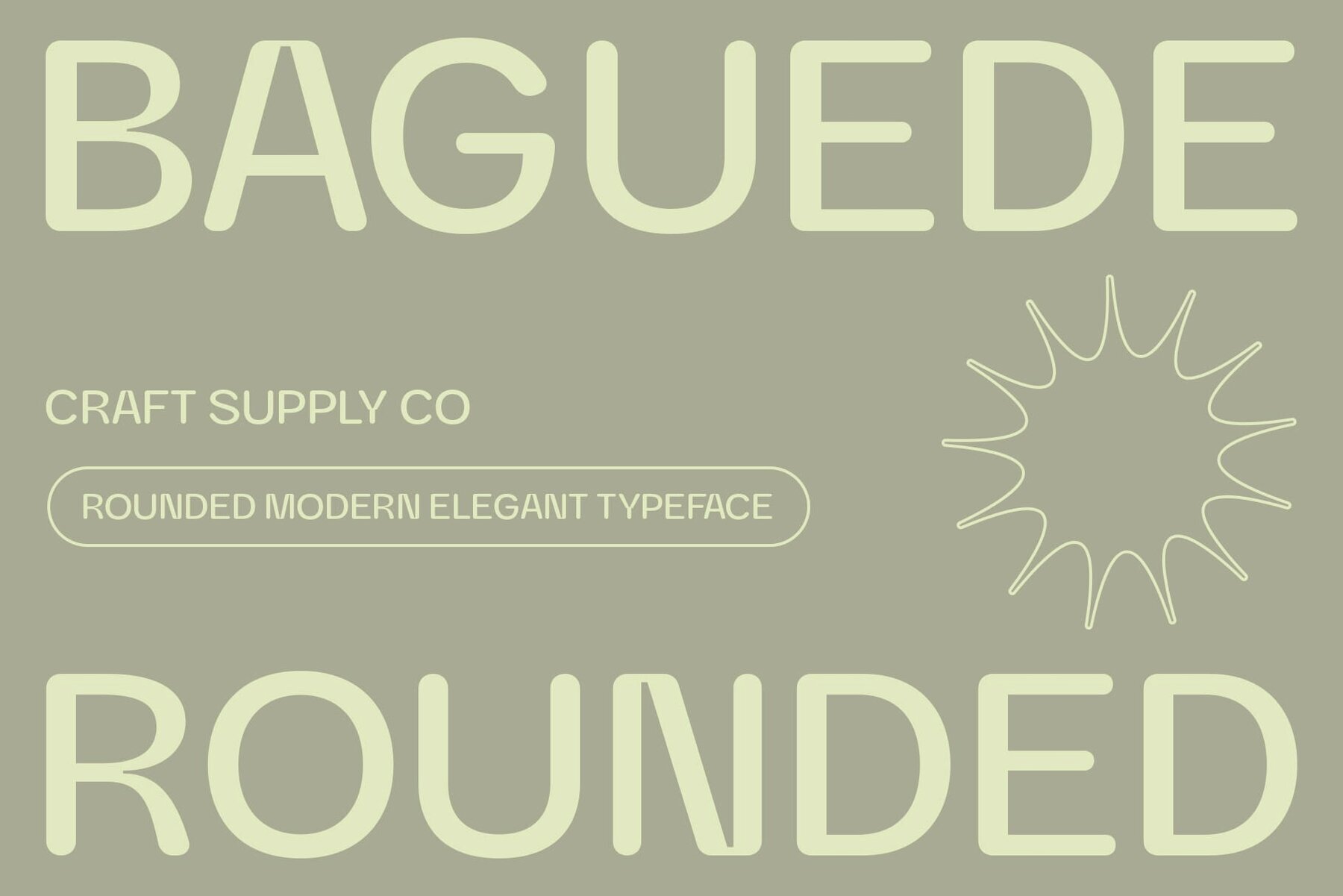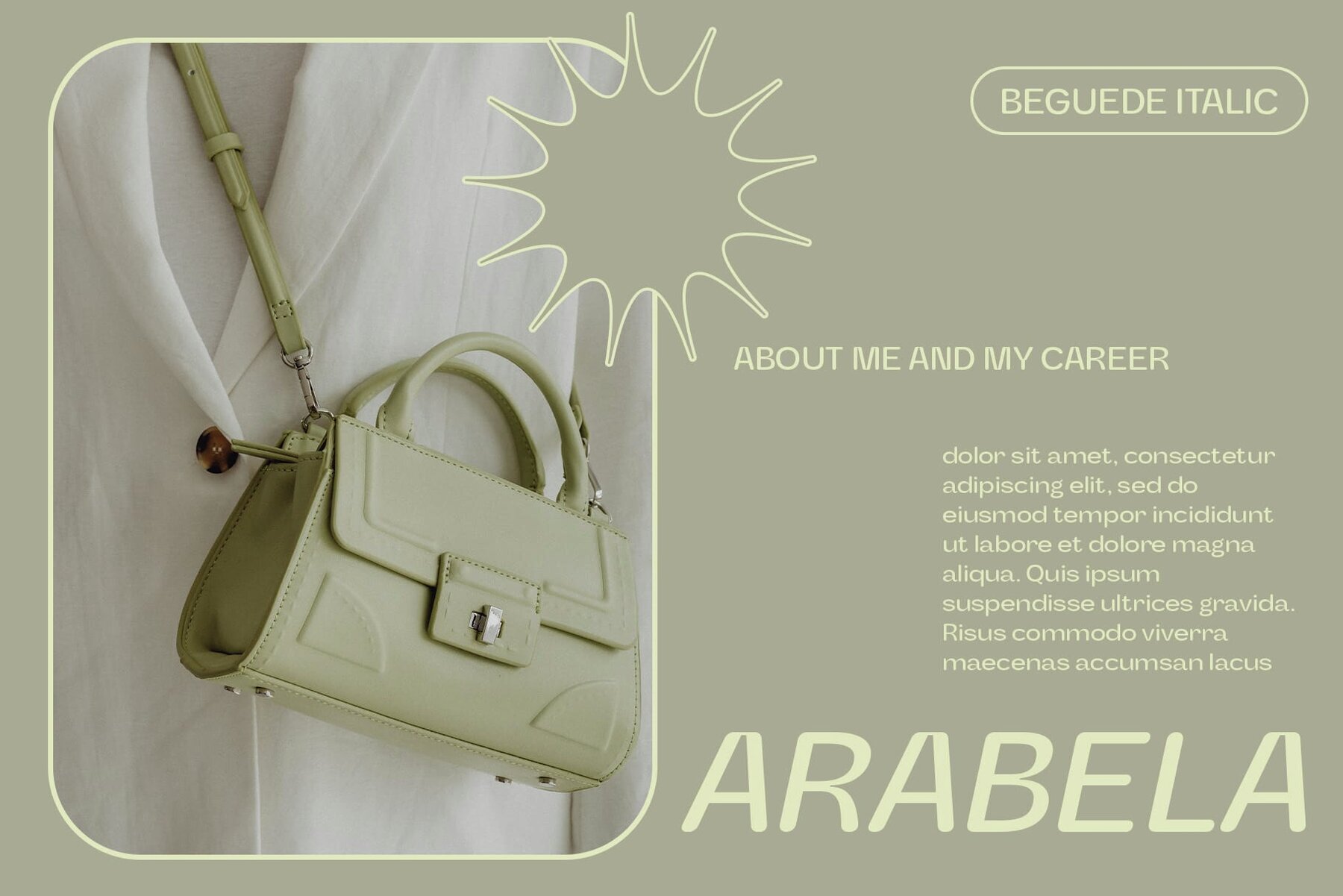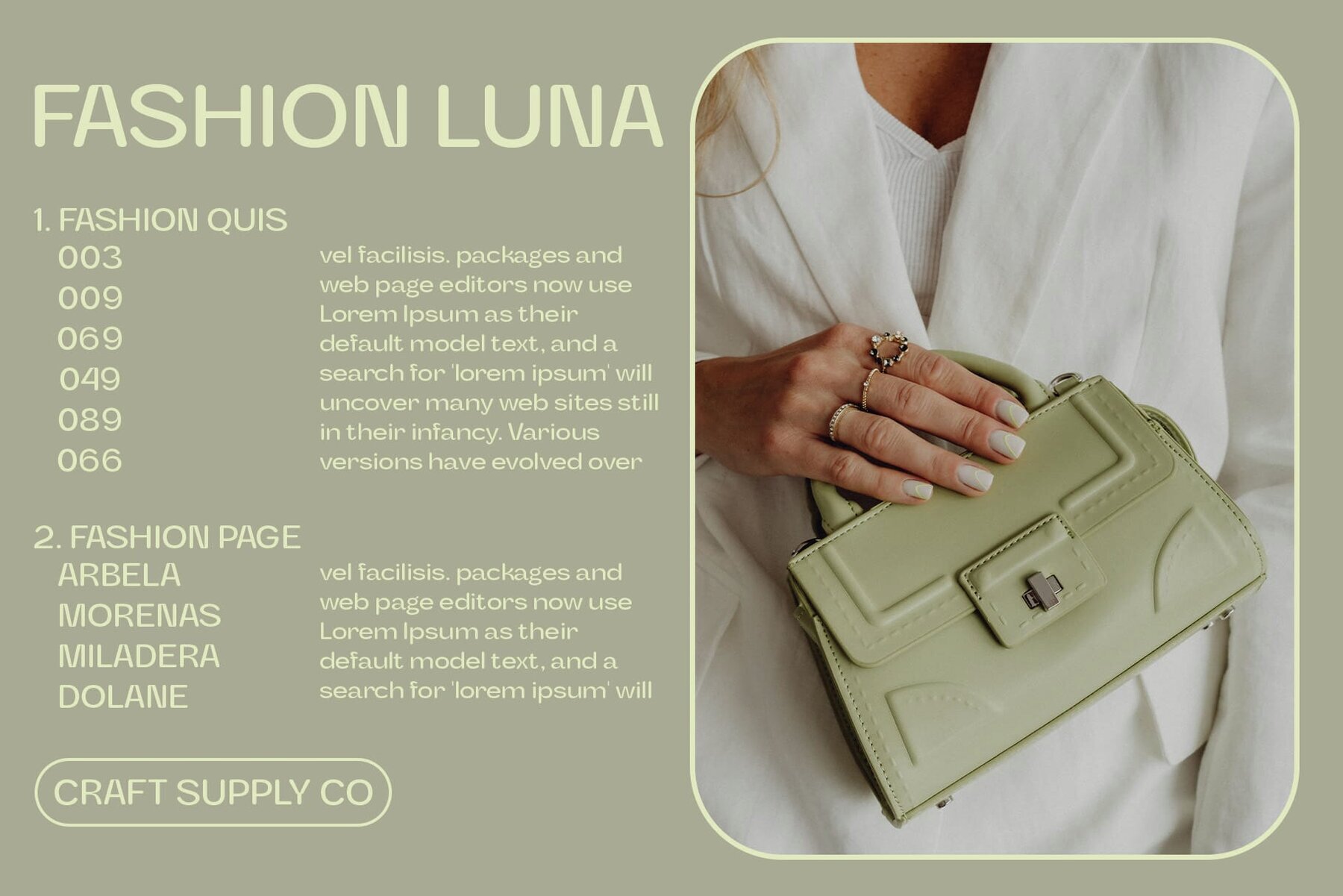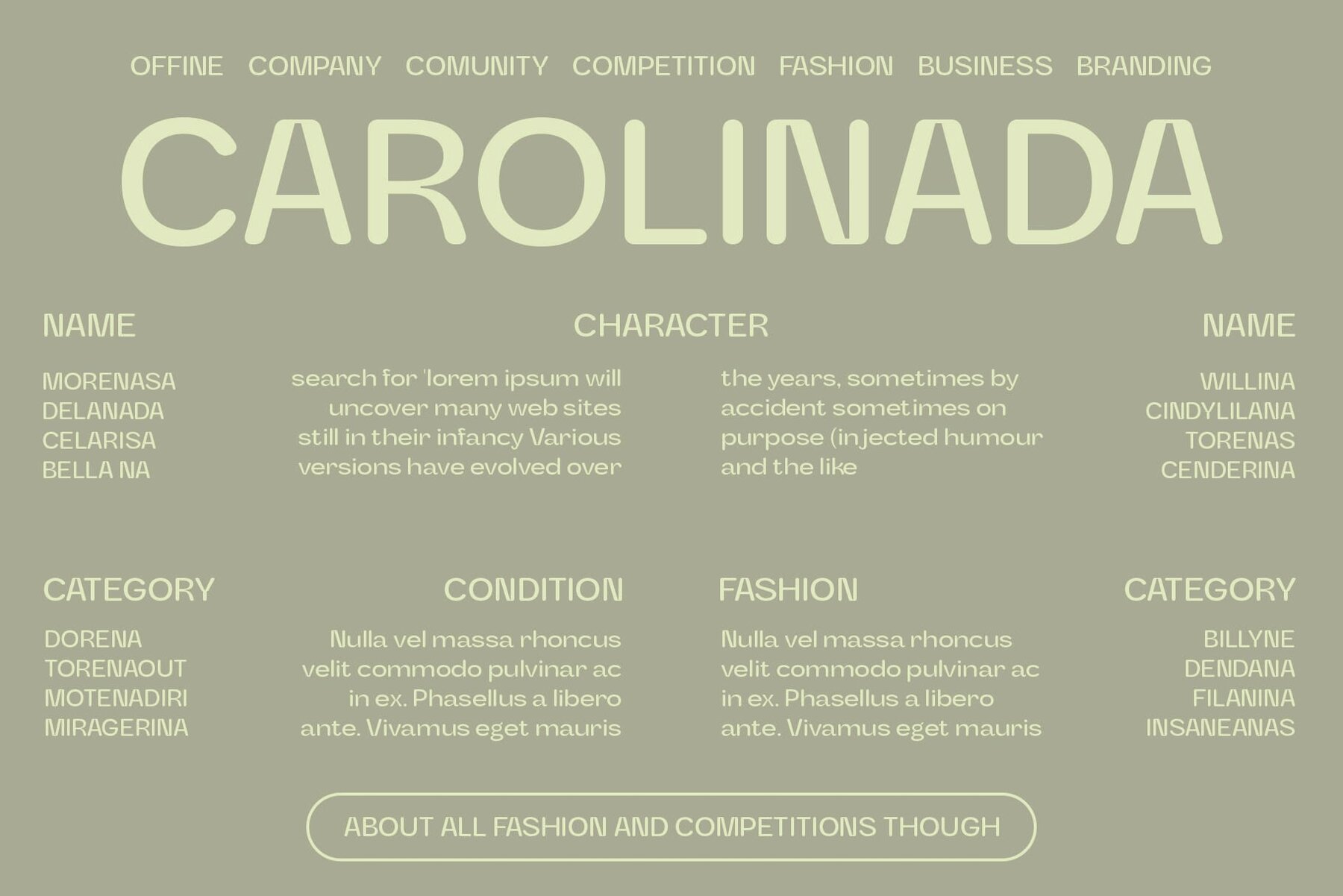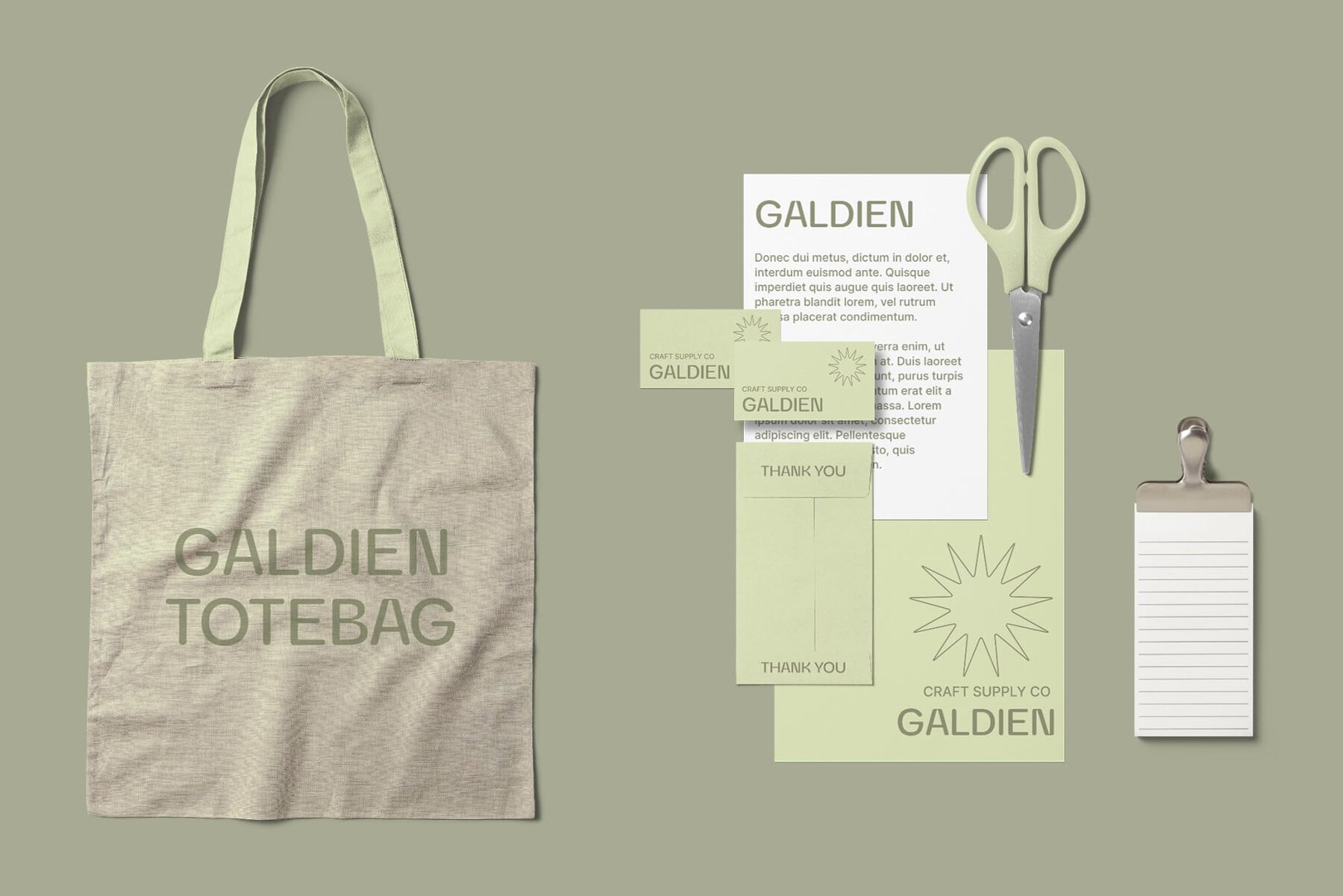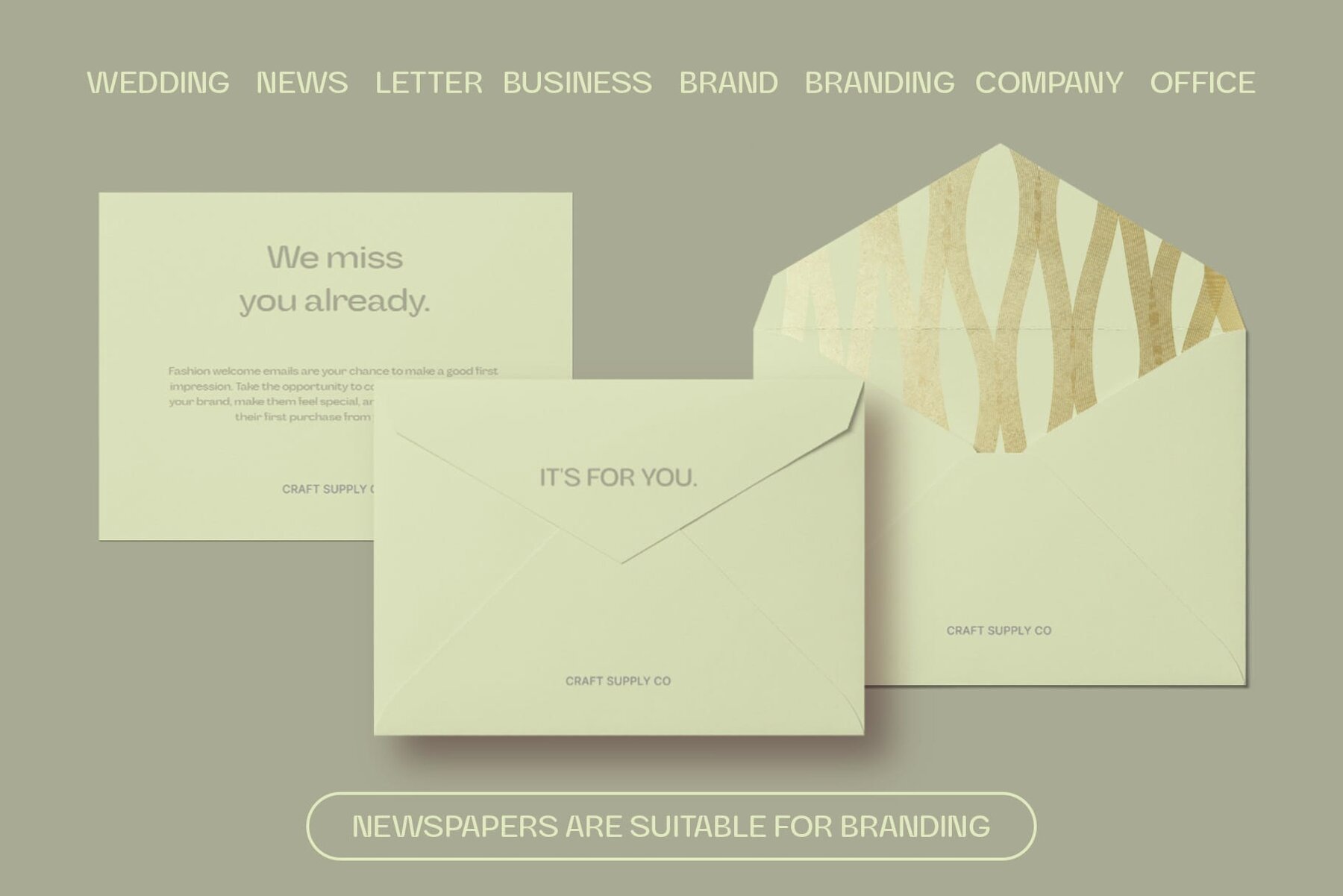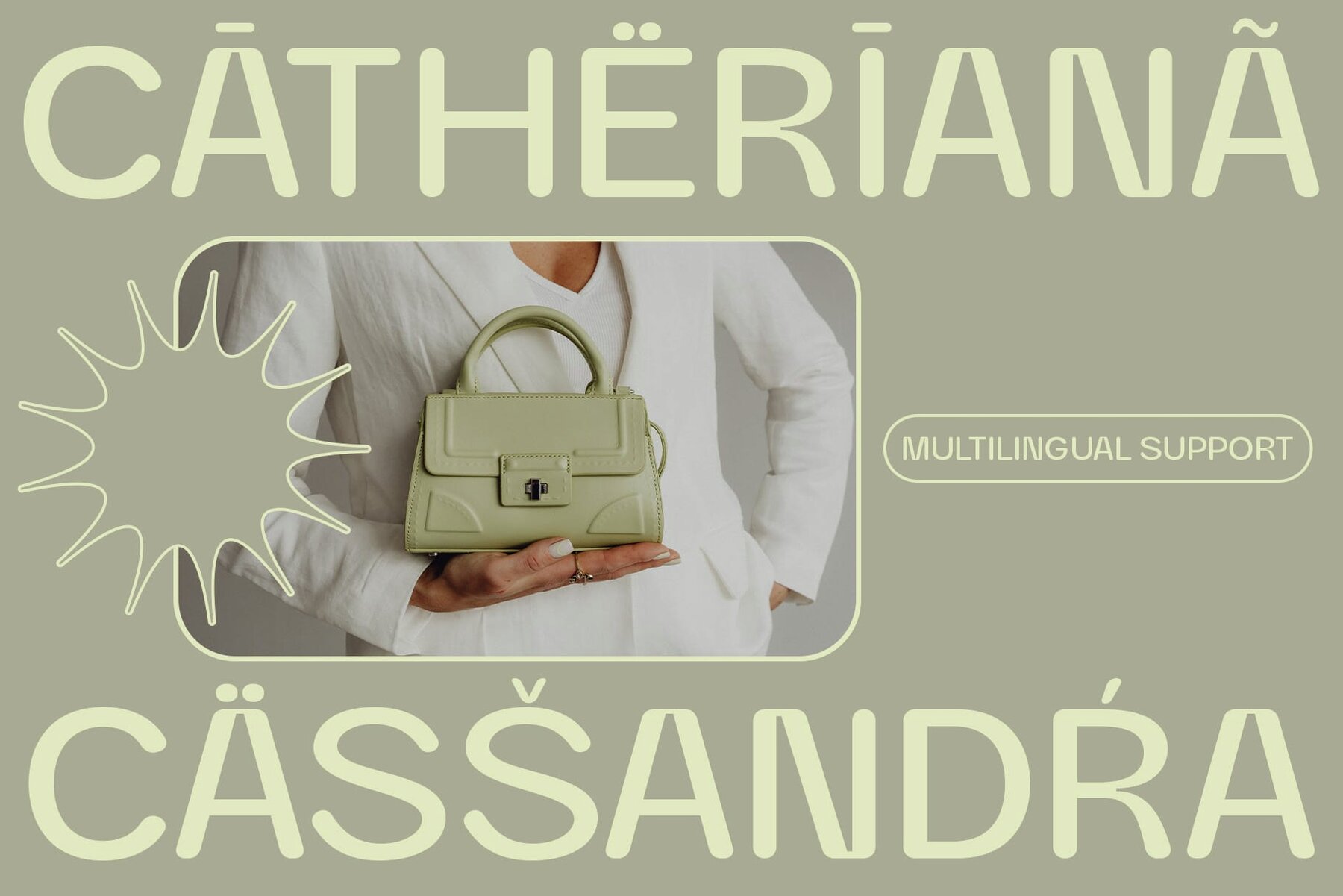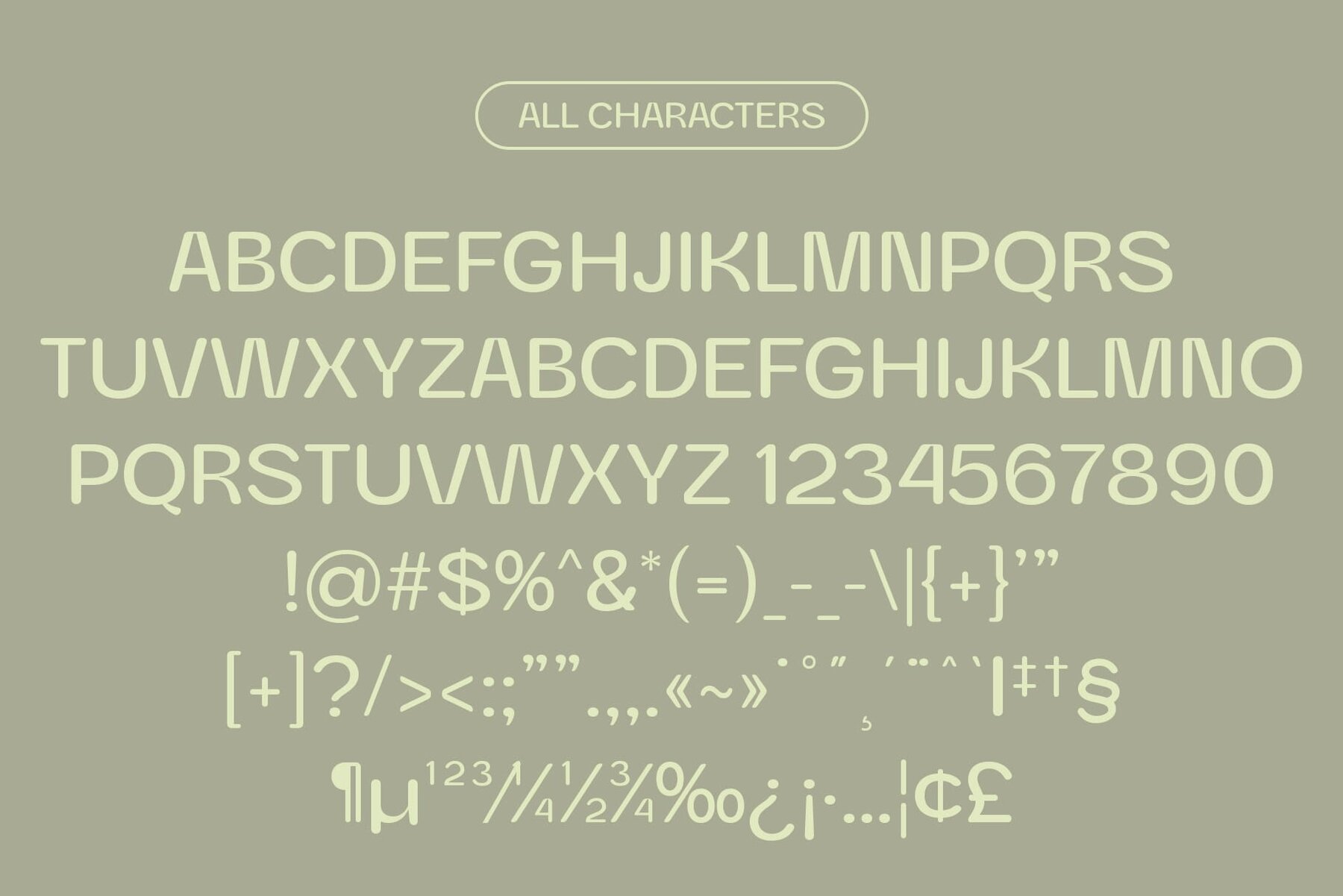
Baguede Rounded Font
Baguede Rounded by Craft Supply Co. is a contemporary sans serif font that exemplifies modern simplicity and elegance. Designed to blend seamlessly into a wide range of design applications, its sleek appearance provides a subtle and impactful visual presence. This typeface is user-friendly and does not require specialized software. If you have any inquiries or need assistance, please feel free to contact us. We appreciate your support in enhancing your creative projects! Best regards, Craft Supply Co.Baguede Rounded: Embracing Modern Simplicity